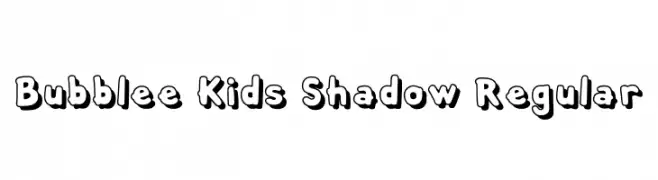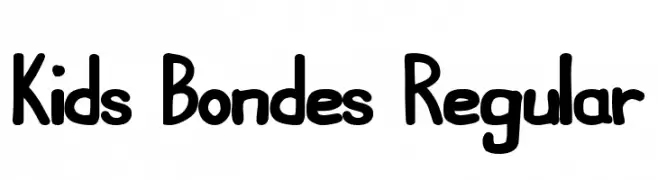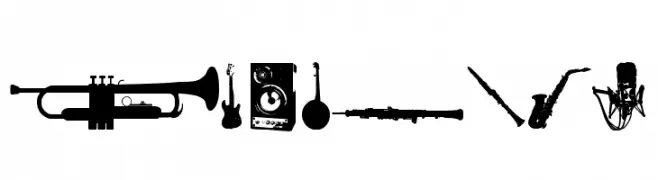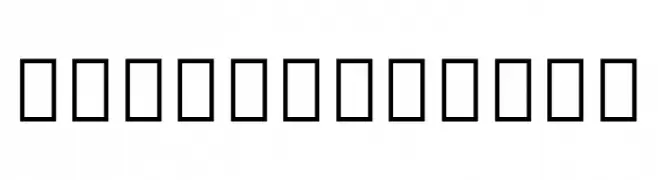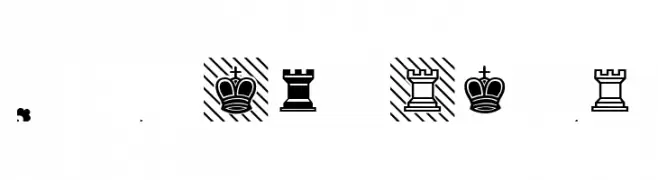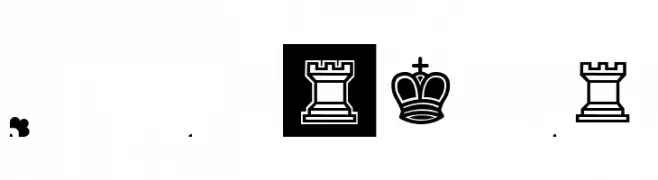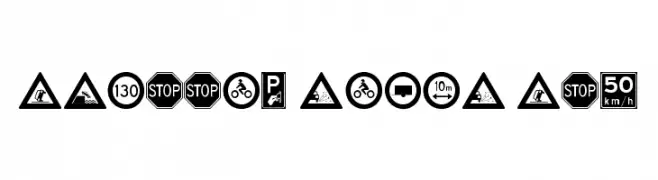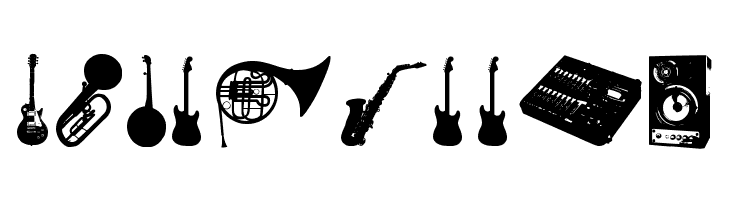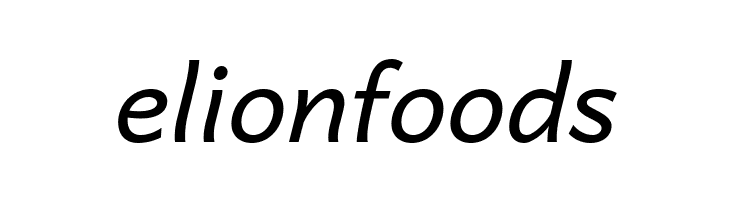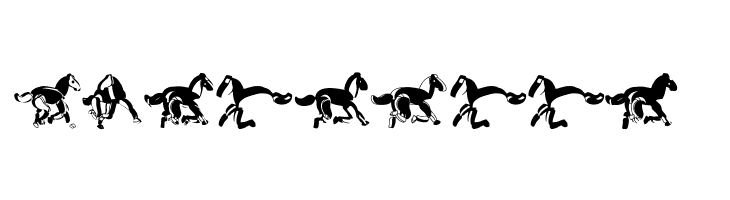
• traffic signs tfb
A pictographic font of traffic and road signs.
• music tfb
A decorative set of music-themed icons representing various instruments and elements.
• Bubblee Kids Shadow Regular
A playful, bold font with rounded characters and a shadow effect, perfect for fun projects.
• Kids Bondes Regular
A playful, rounded font with a youthful, hand-drawn appearance.
• Schach Regular
A set of chess piece symbols with bold outlines for clarity.
• Schach Light Regular
A collection of stylized chess piece symbols for digital and print use.
• OpenBaybayin
A modern, geometric interpretation of the traditional Baybayin script.
• Andika New Basic Italic
A modern, italic sans-serif font with clean lines and balanced proportions.
• Andika New Basic
A clean, modern sans-serif font with excellent legibility.
• FontsVectorHIEROGLYPS
A collection of decorative hieroglyphic symbols inspired by ancient Egyptian writing.